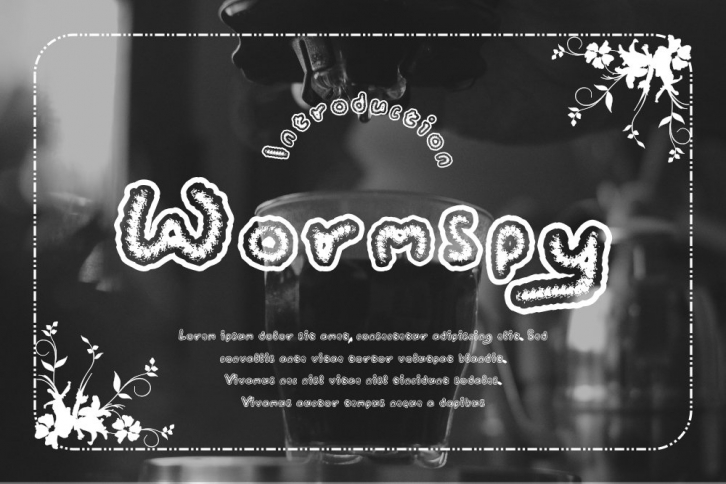
Wormspy is a gorgeous font that was realeased on June 11, 2020. The font can be used in many style contexts and design environments. Perfect for invitations, magazines, websites, logos, and more! It was designed by gblack-id and the file size is 21.71 MB. Thanks for checking out this font!